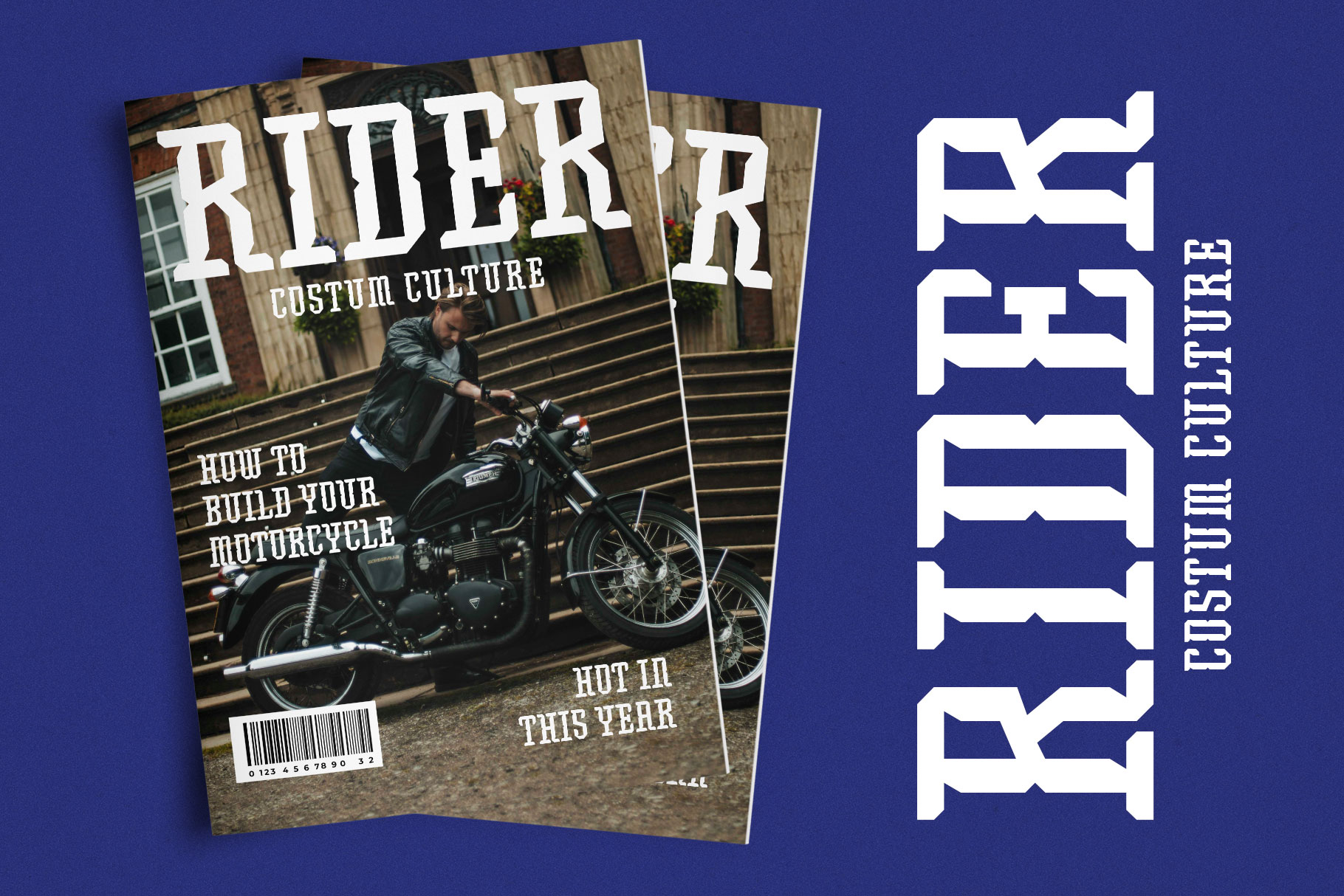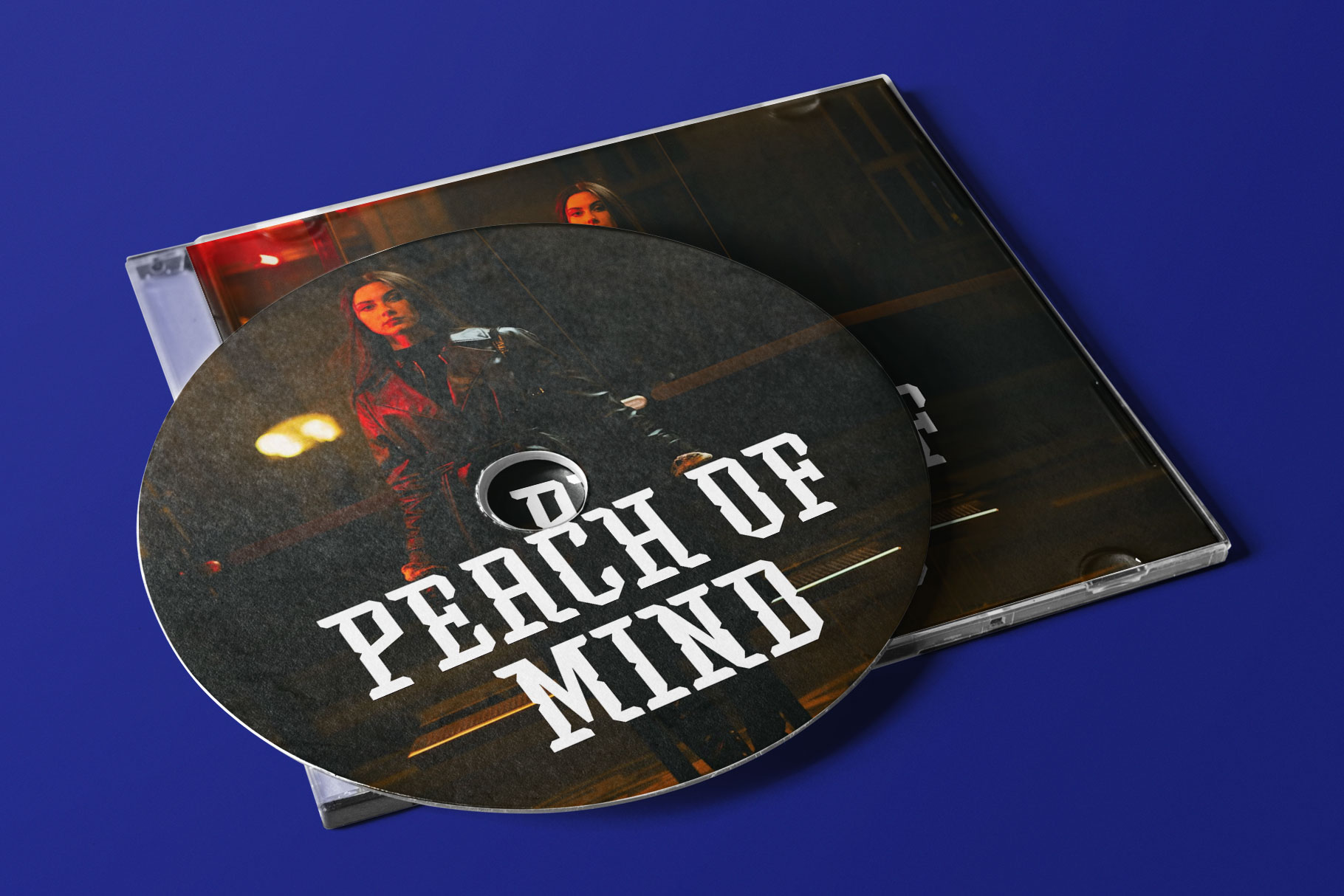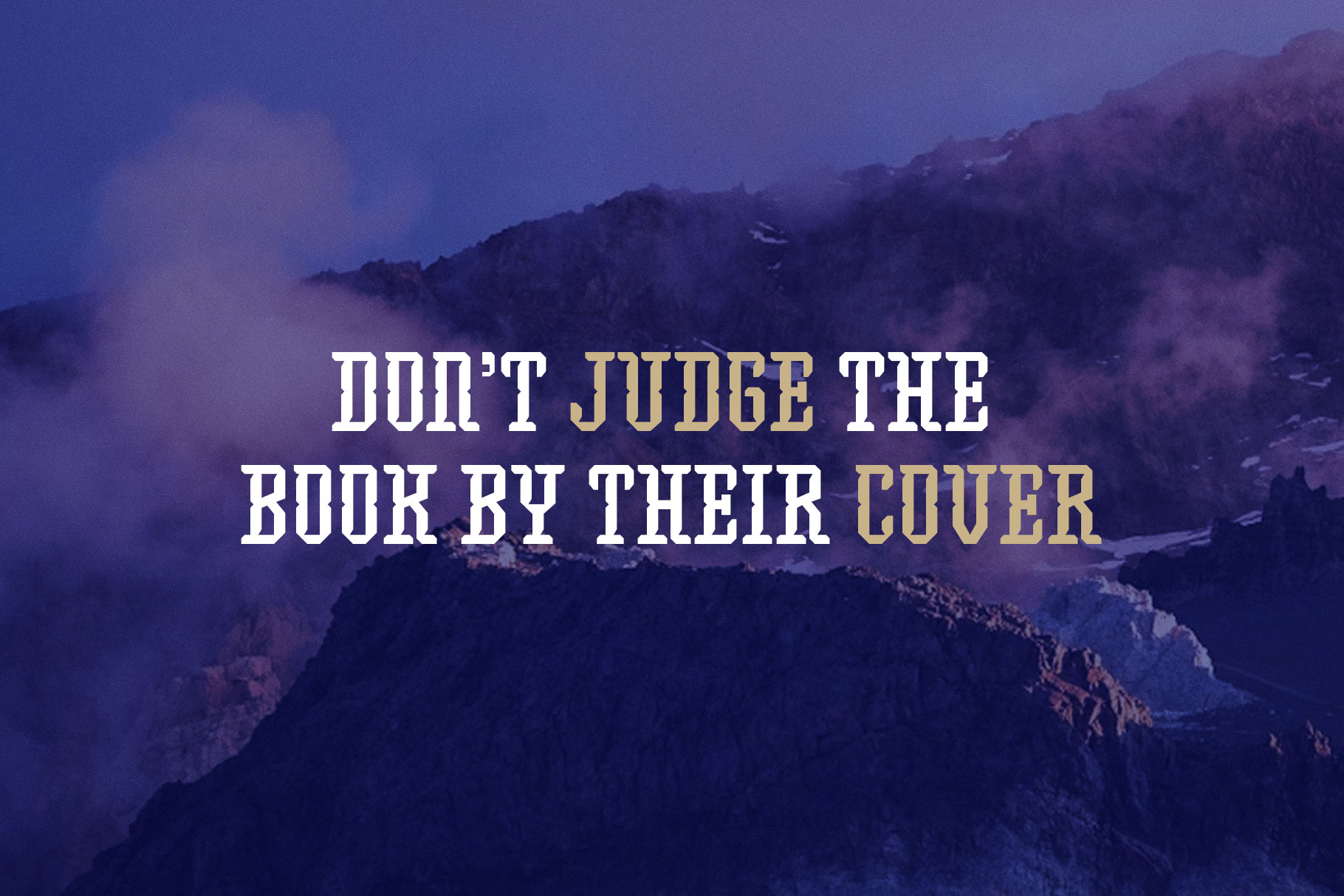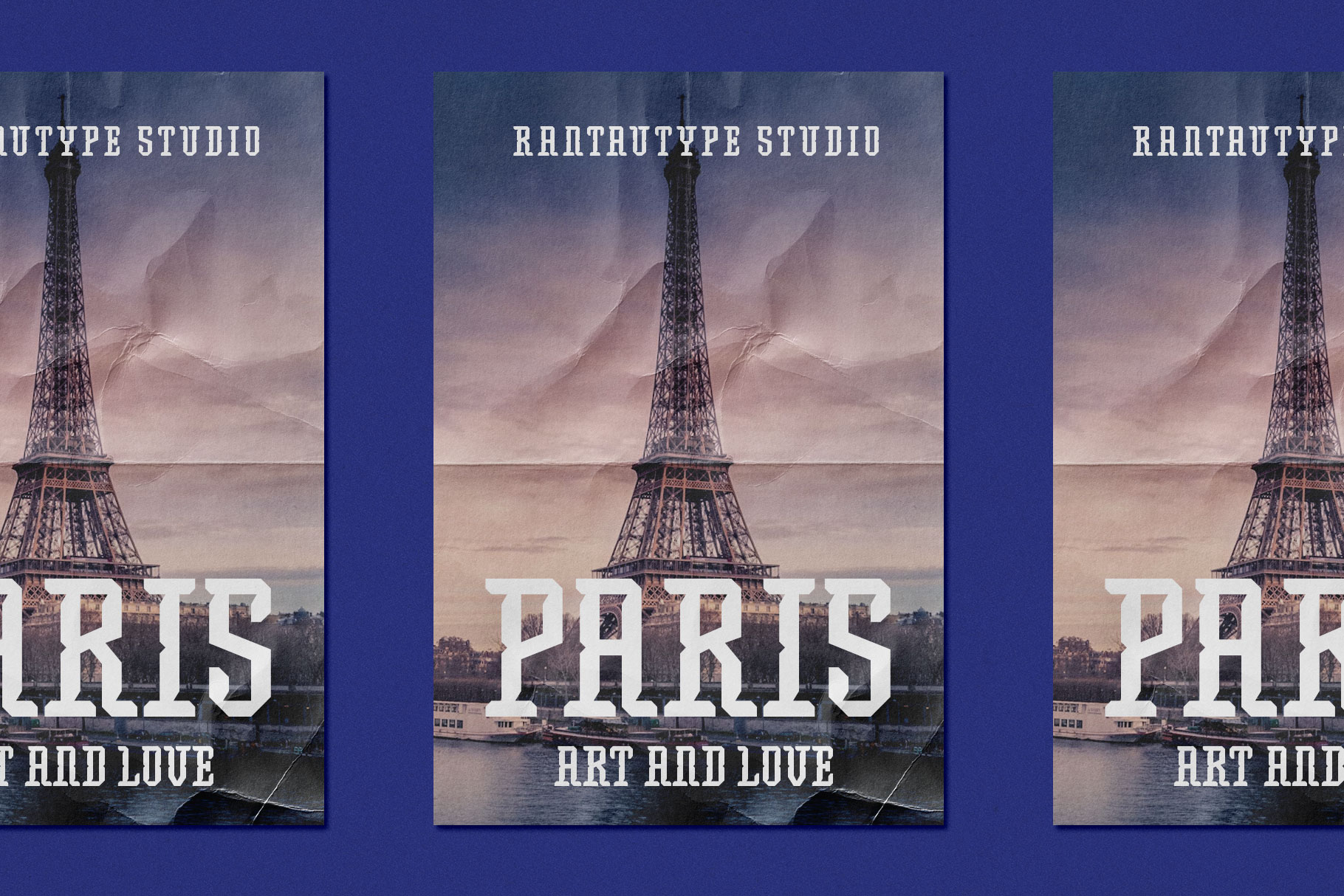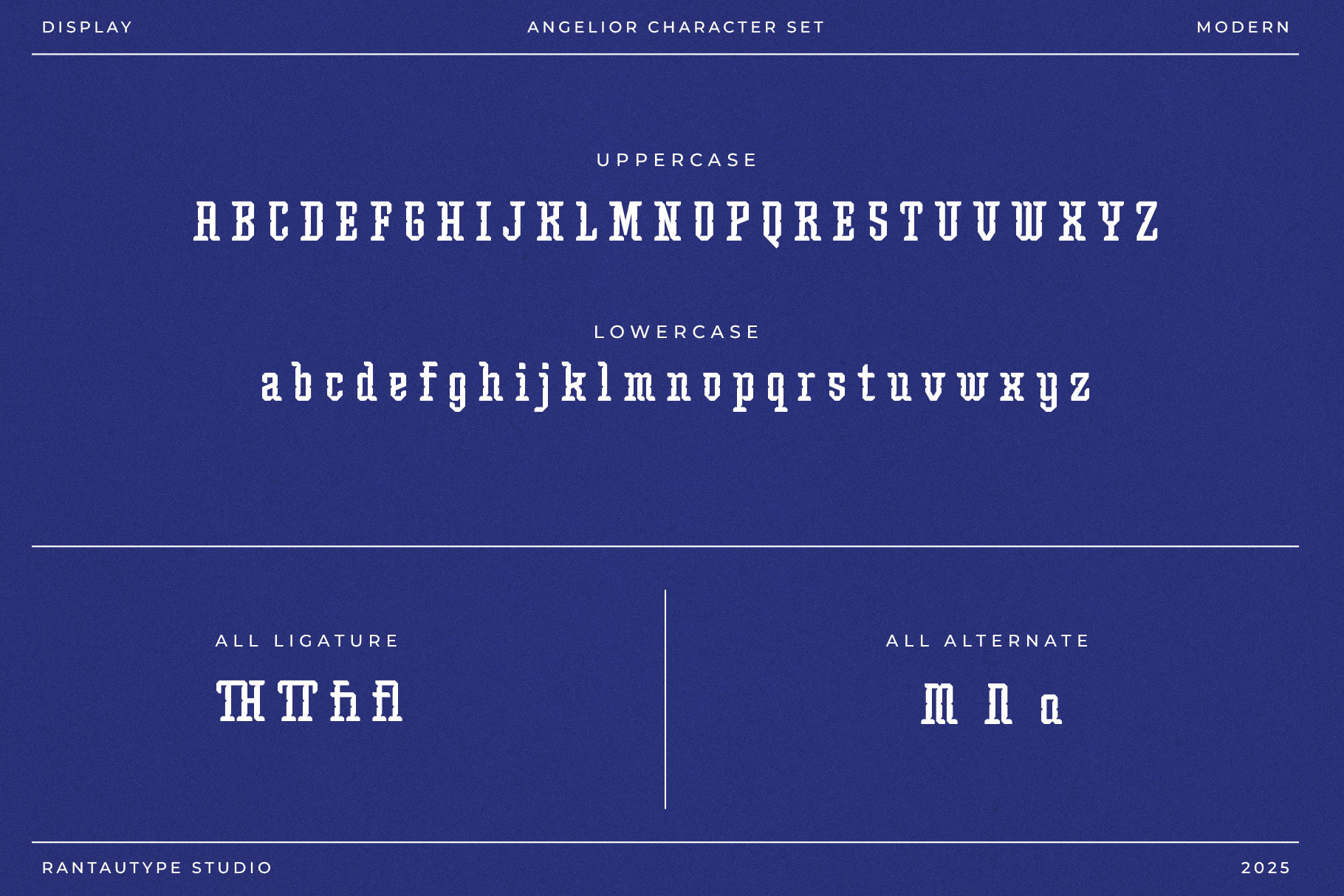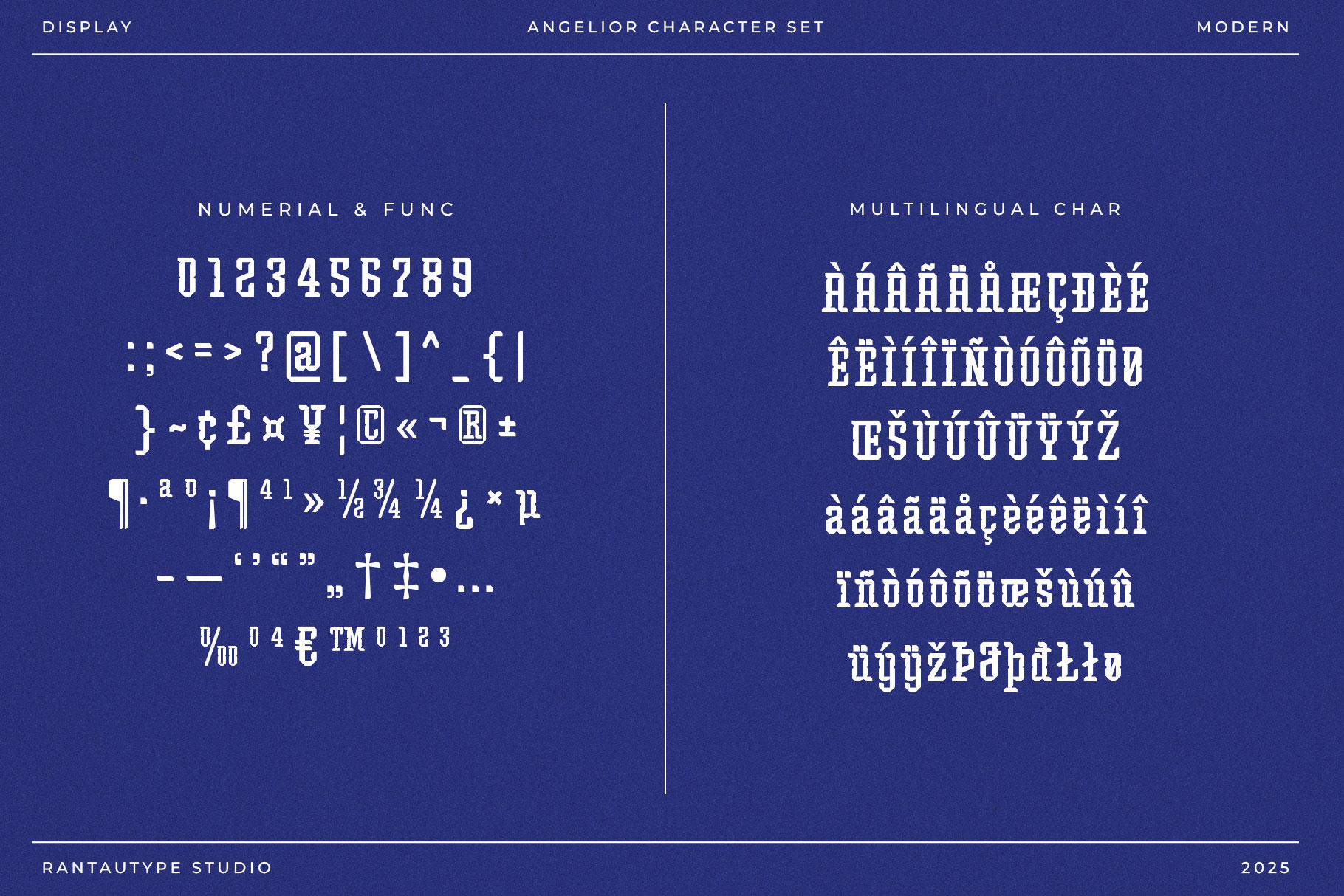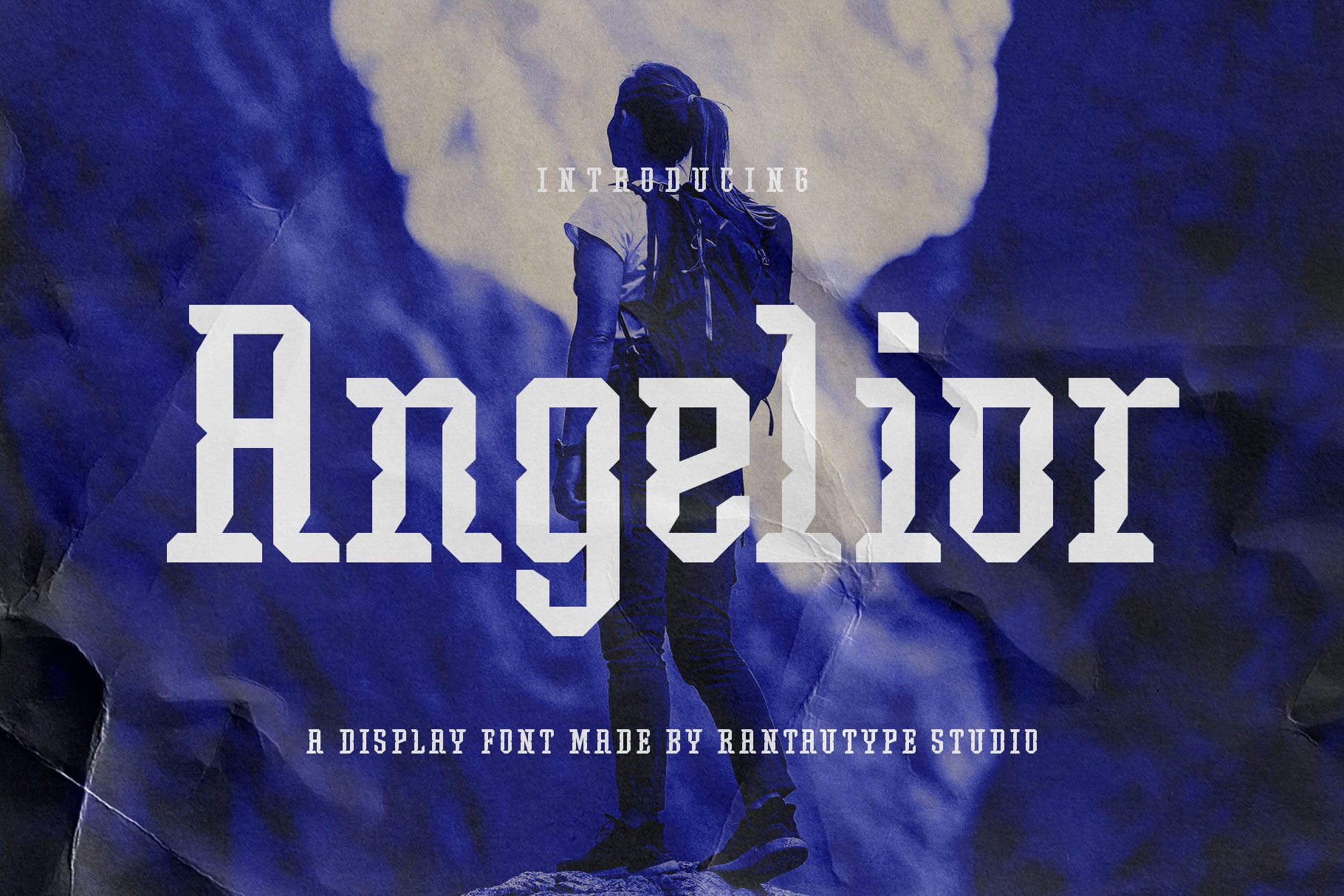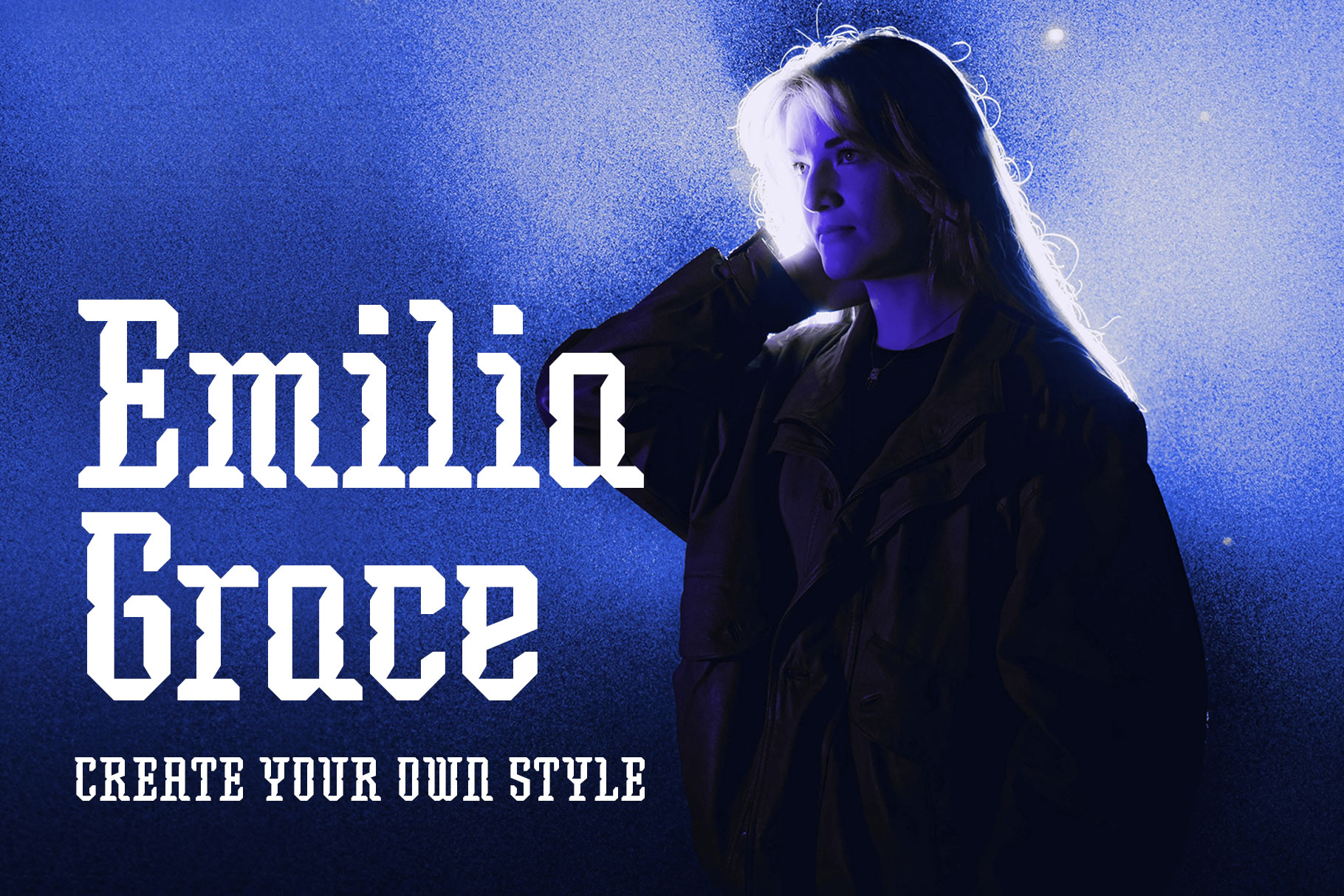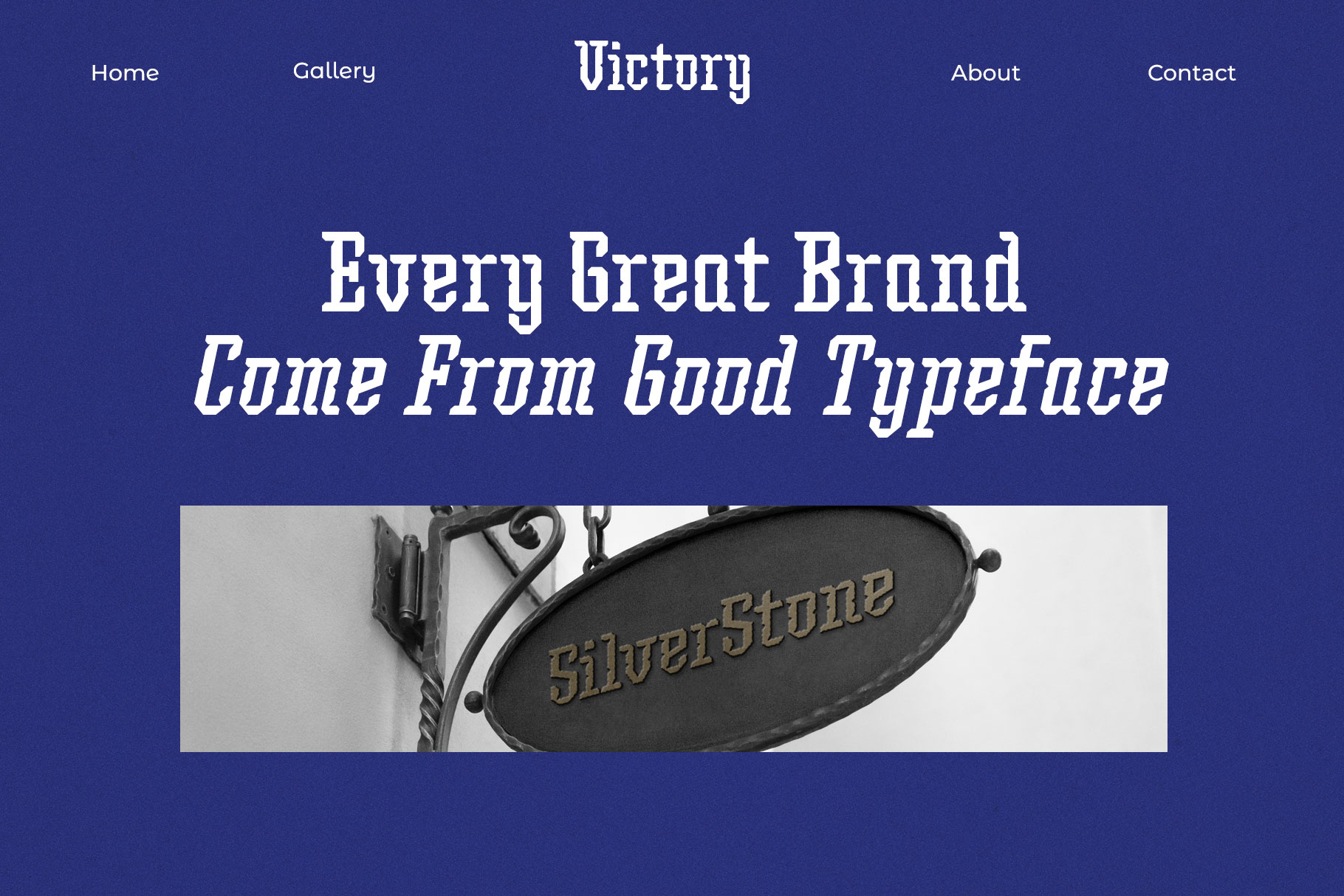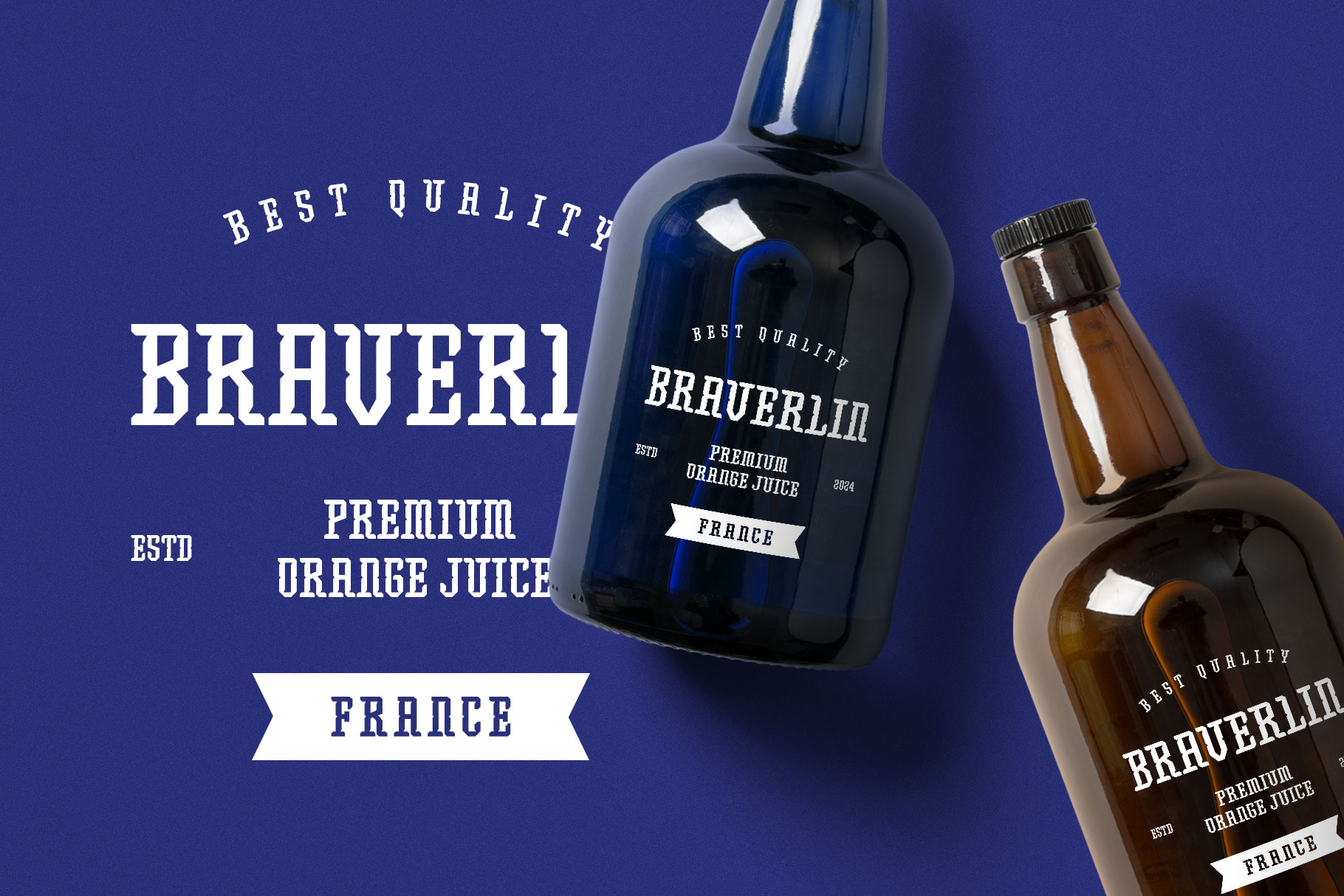
Angelior Display Font
Angelior is display font with decorative authentic character. Angelior is a perfectly choice for any creative endeavor, chic, lifestyle design such as logotype, advertisements, watermark on photography, stationery, branding project, display and magazine, invitation, corporate brand, product design, label, business project and many other project with unique touch.